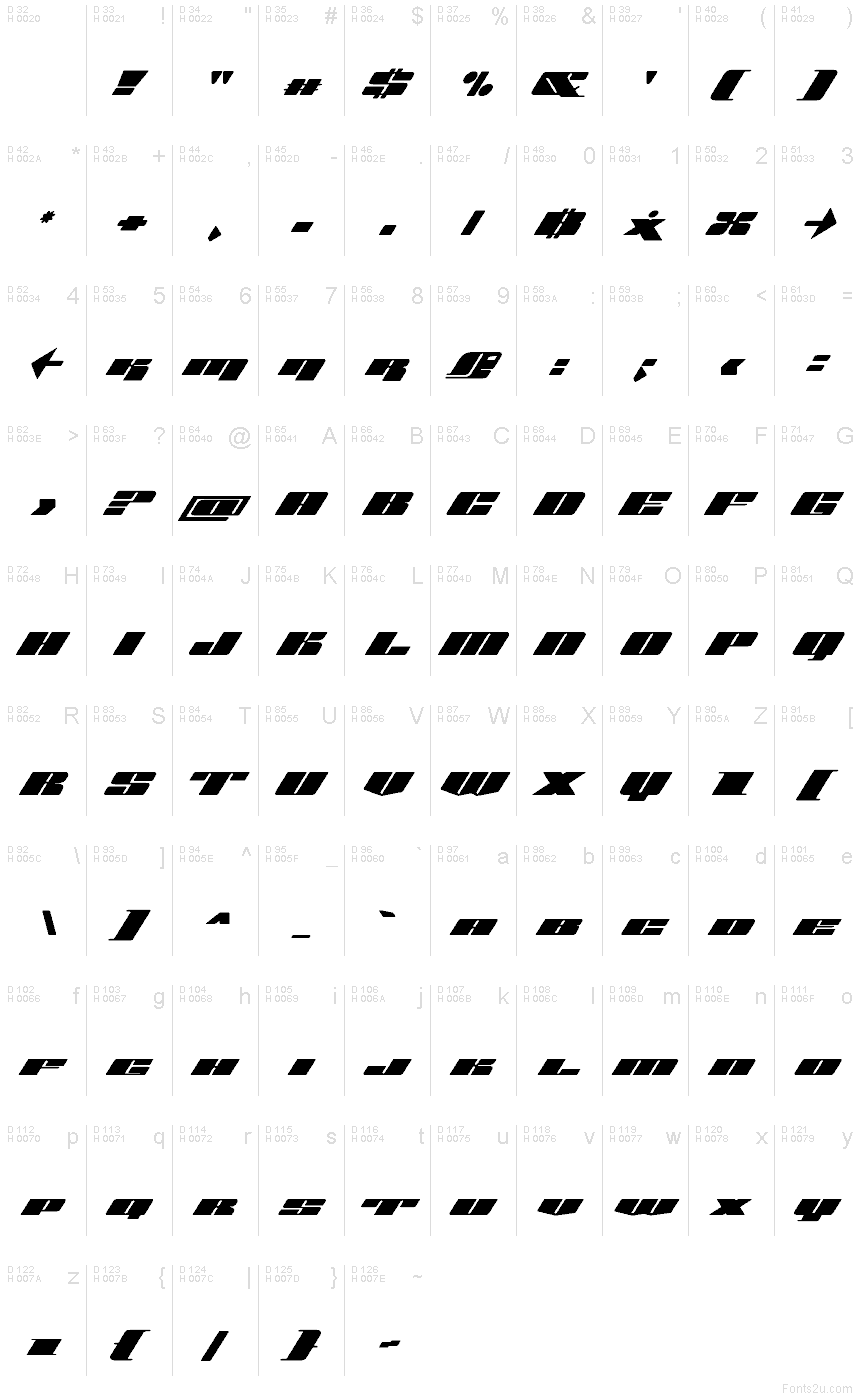
Octavus Caps Black
Octavus Caps Black font by Fernando Haro of deFharo is a free black futuristic display font. Built within the Octavus family, it leans hard into speed: ultra-italic forms, blade-like terminals, and deep chamfers carve out a streamlined, aerodynamic silhouette. The strokes feel dense and pressurized, with tight interior cuts that read like vents—aggressive yet clean, all caps and all motion.
Using Octavus Caps Black, headlines hit like a launch sequence—great for esports logos, sci‑fi posters, racing liveries, tech branding, game titles, and YouTube thumbnails. The rhythm is fast and continuous, so it shines at large sizes with slightly tightened tracking. Pair this free font with a neutral grotesk for body text to let its angular swagger lead without overwhelming the layout.